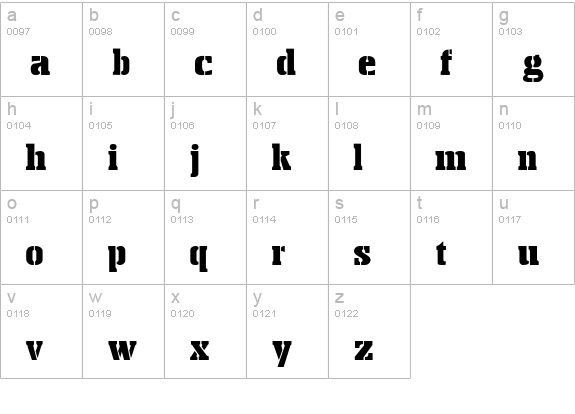
Forklift Display SSi Font Details
Forklift Display SSi font is a modern and versatile typeface that adds a touch of sophistication to any design project. With its clean lines and bold presence, this font is perfect for creating eye-catching headlines, logos, and branding materials. The sleek and elegant design of Forklift Display SSi font makes it an ideal choice for both digital and print applications. Best of all, Forklift Display SSi font is available for free download at FontsMarket.com. This means you can easily add this stylish font to your collection without any cost. Whether you're a designer looking to enhance your projects or a business owner wanting to elevate your brand, Forklift Display SSi font is a must-have addition to your font library. Download it today and start creating stunning designs that stand out from the crowd.